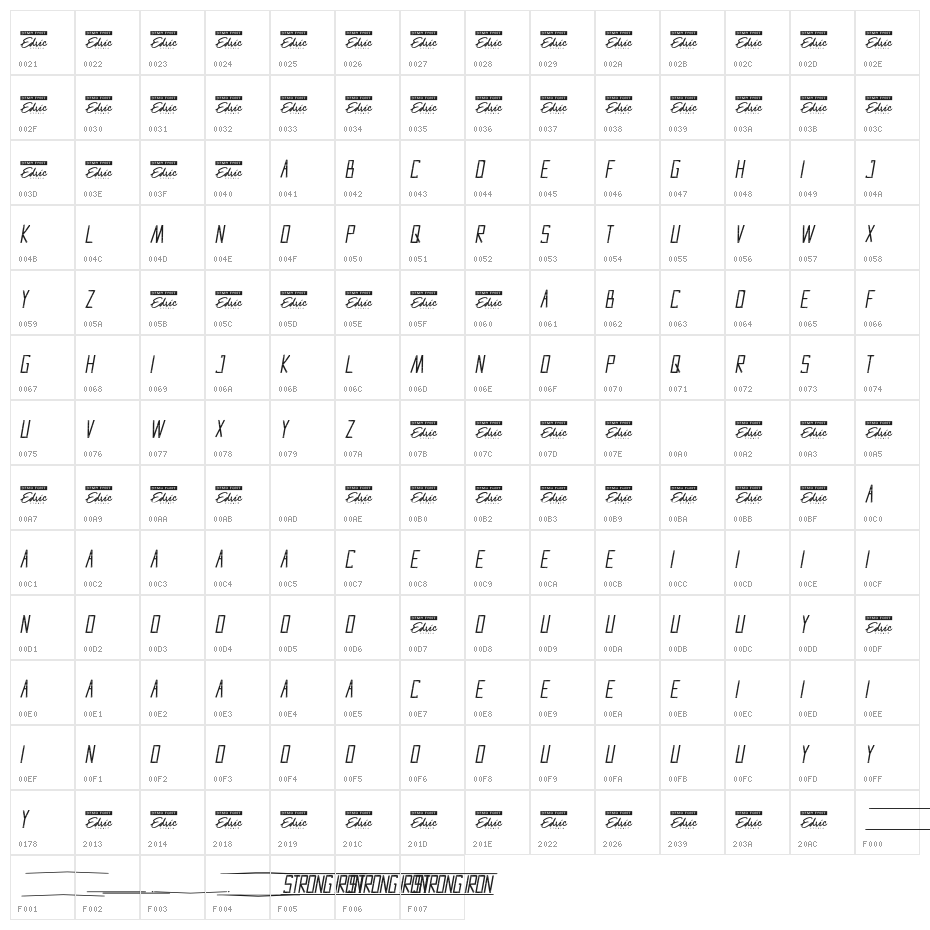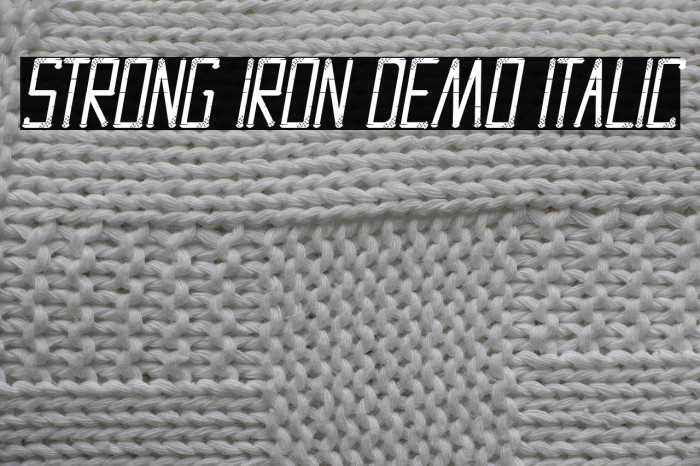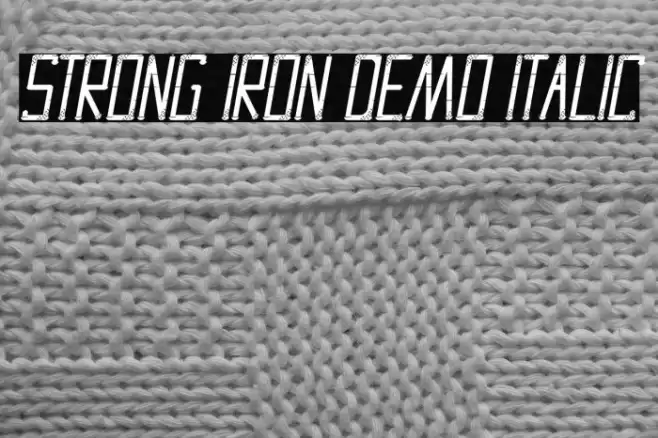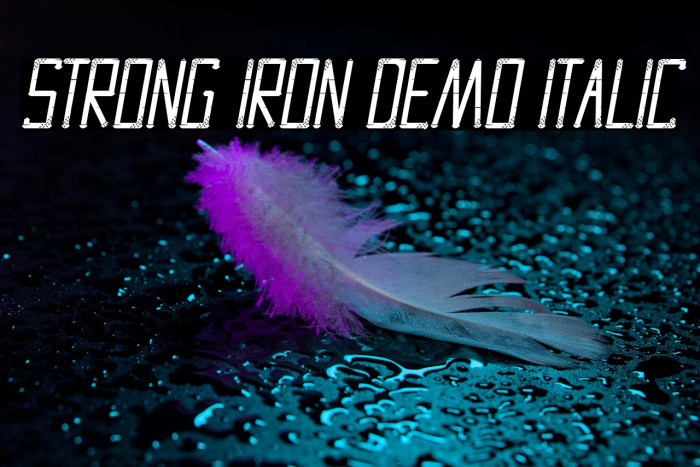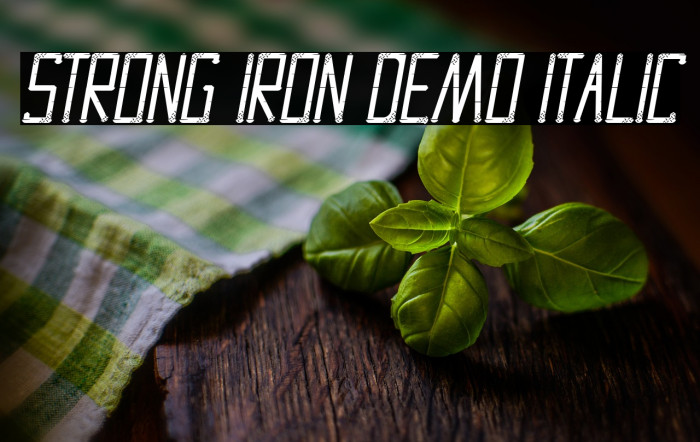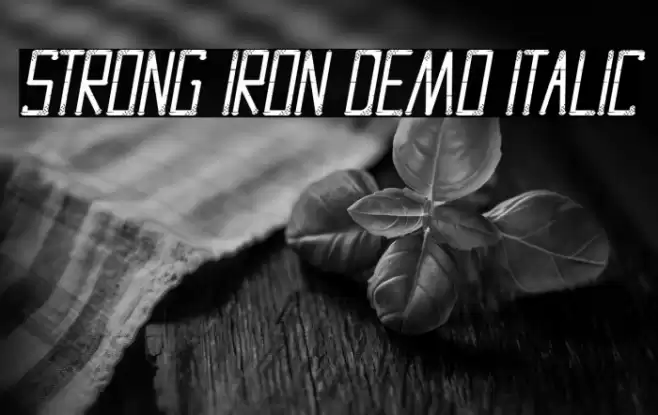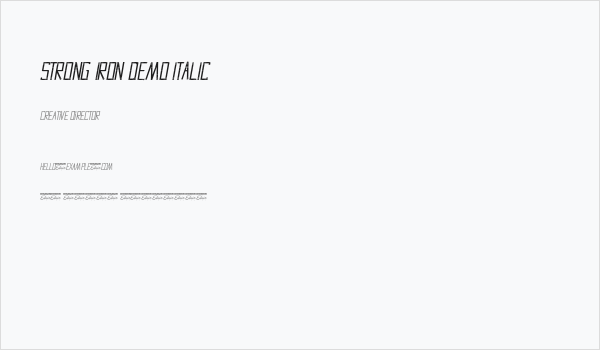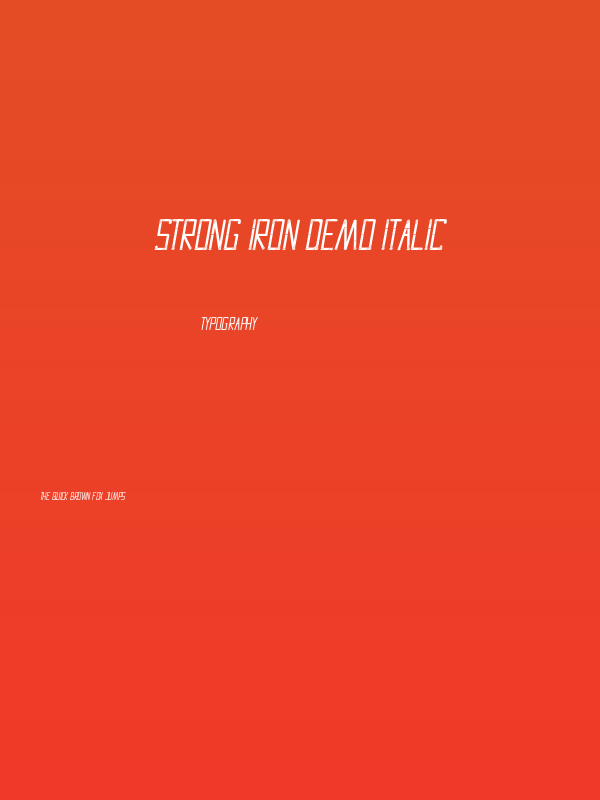
Strong Iron Demo Italic Font
Strong Iron Demo Italic Description
This font features a bold and dynamic design with a distinct italic slant, giving it a sense of motion and energy. The characters are constructed with a geometric precision, incorporating sharp angles and clean lines that contribute to its modern aesthetic. The font's texture includes a subtle distressed effect, adding a rugged and industrial feel. This combination of elements makes it suitable for projects that require a strong and impactful visual presence. The uppercase letters are particularly striking, with consistent height and width, while maintaining a unique character shape that enhances readability.
| Proposed Projects | Perfect for branding, sports team logos, posters, and any design needing a bold, energetic typeface. |